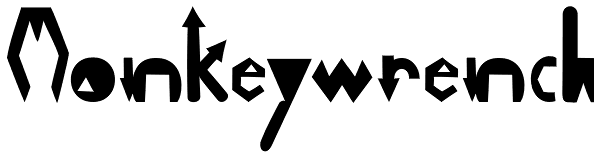
Monkeywrench
Burghal Design's mission, should we choose to accept it: design a typeface whose characters consist only of hexagons, circles, triangles, squares and crescents. Mission accomplished, and voila! Monkeywrench is the result. Monkeywrench includes upper...